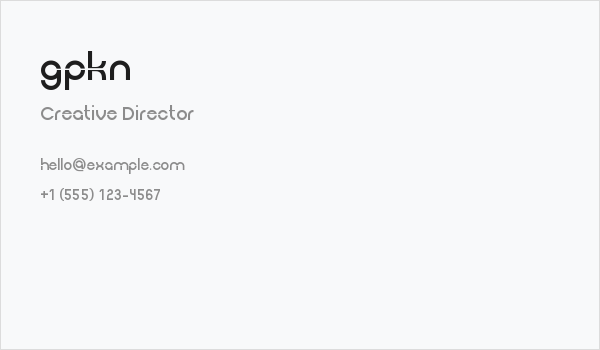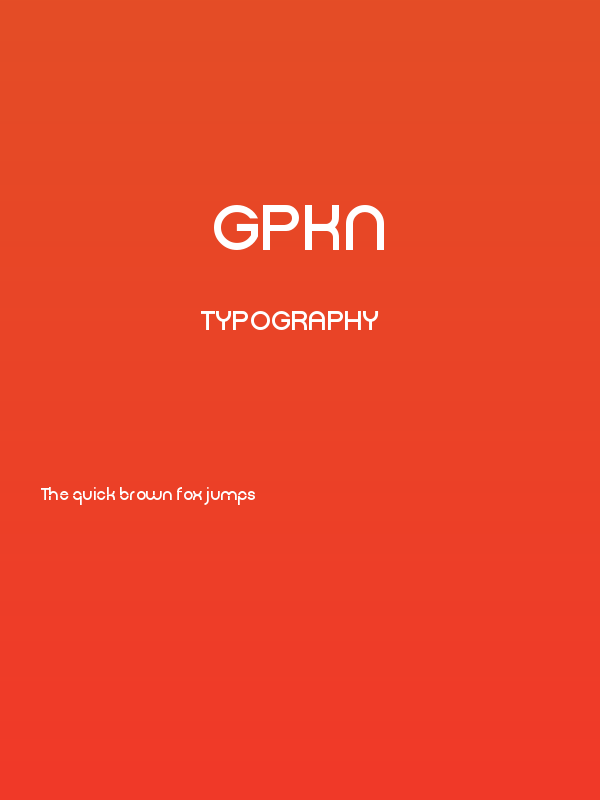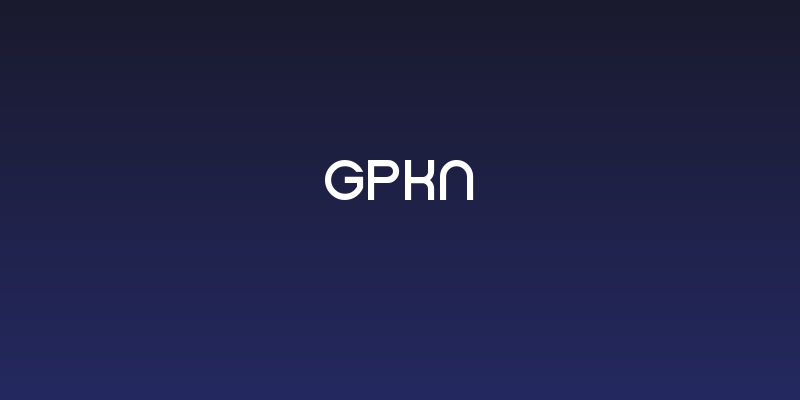
gpkn Font
gpkn Description
This font features a modern and geometric design with clean, rounded edges and a consistent stroke width. The uppercase letters are bold and assertive, while the lowercase letters maintain a harmonious balance with their slightly more open forms. The numerals are clear and easy to read, making them suitable for various applications. Special characters are well-integrated, maintaining the overall aesthetic. The font's simplicity and clarity make it versatile for both digital and print media.
| Proposed Projects | Ideal for branding, advertising, web design, and editorial projects where a modern and clean look is desired. |